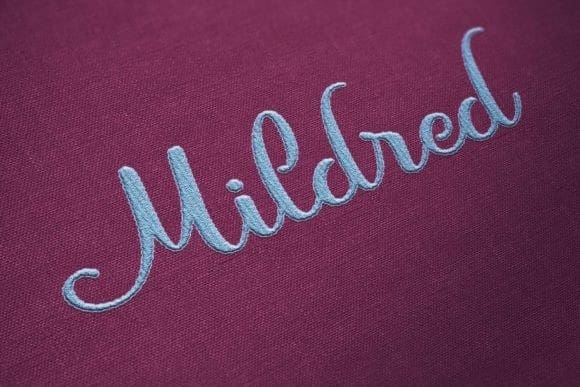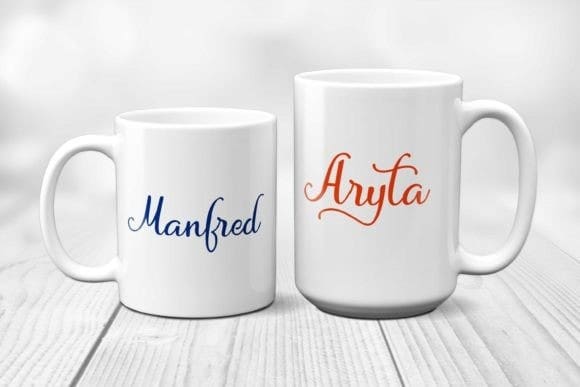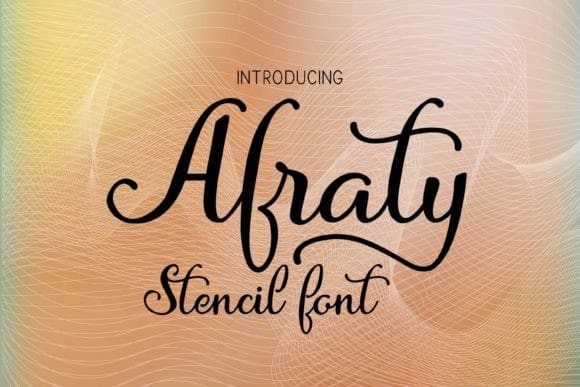
Afraty Stencil Font
Afraty Stencil Font is a modern script with a handmade calligraphy style that is suitable for branding, wedding invitations, and craft projects. Since there are not closed loops on the characters it is a perfect choice to use it for stencil or cutout projects.